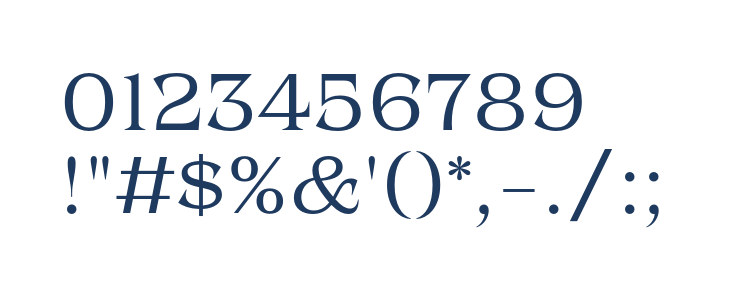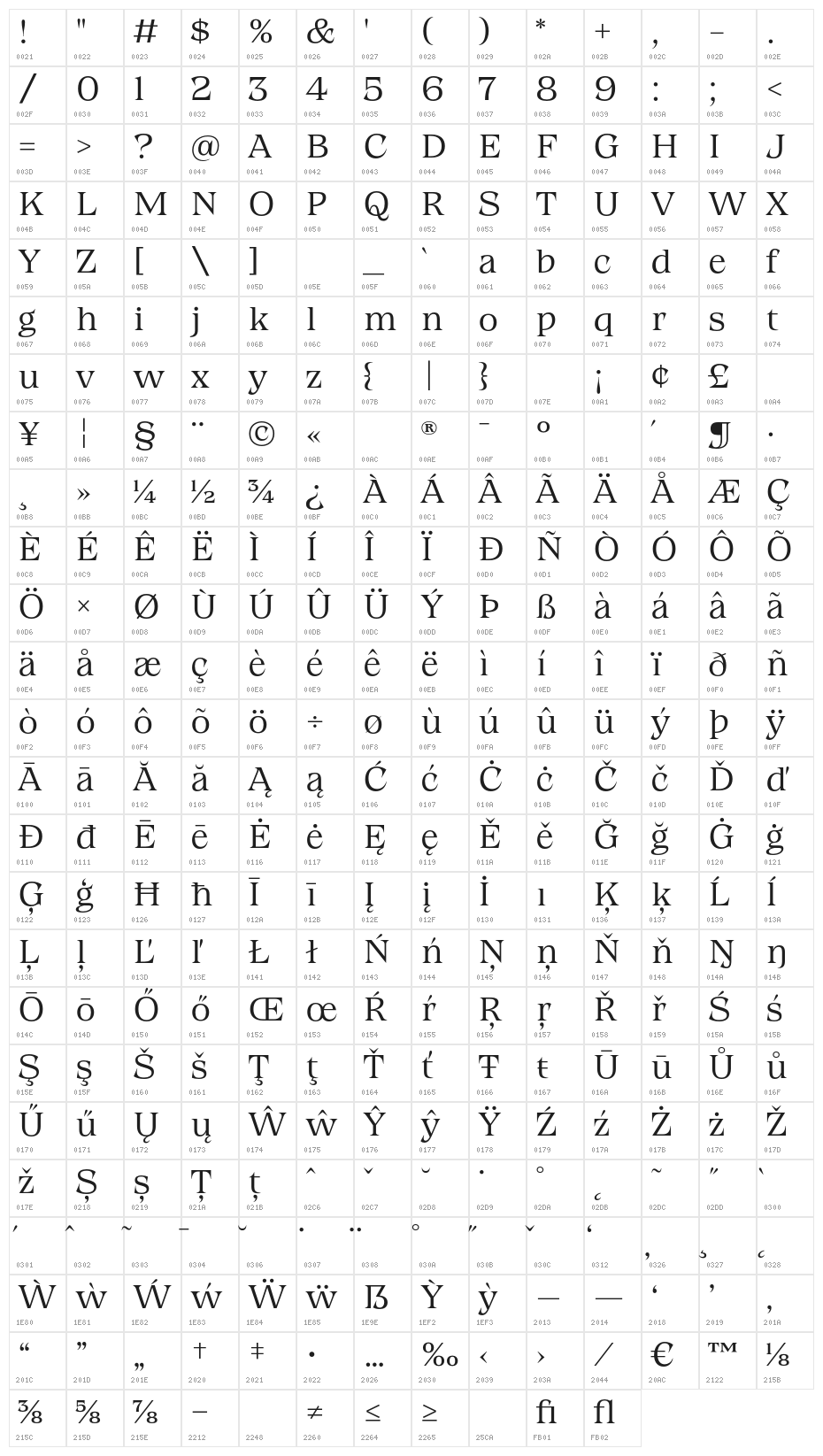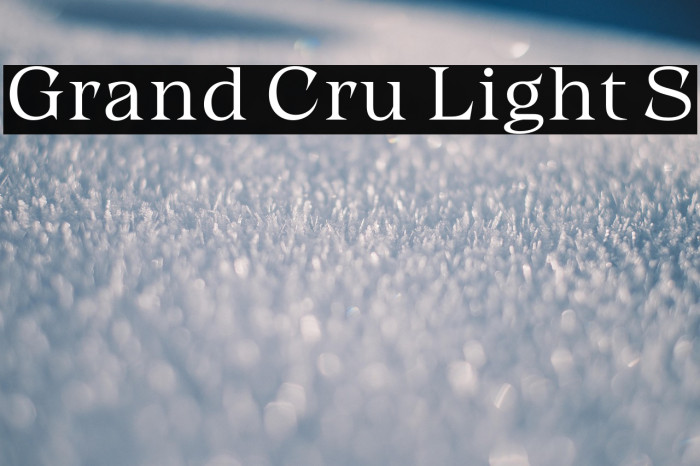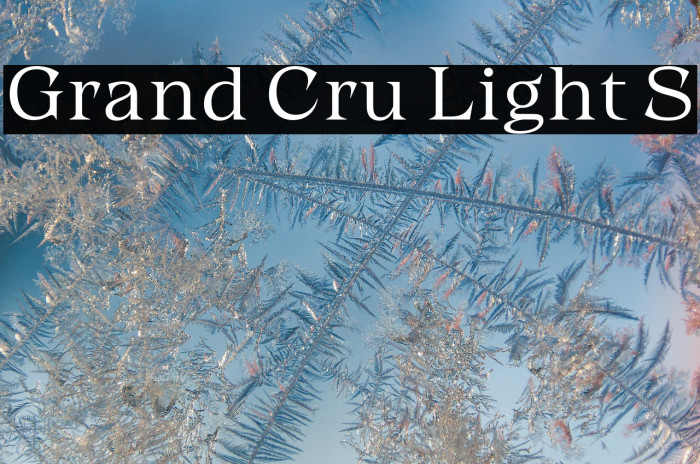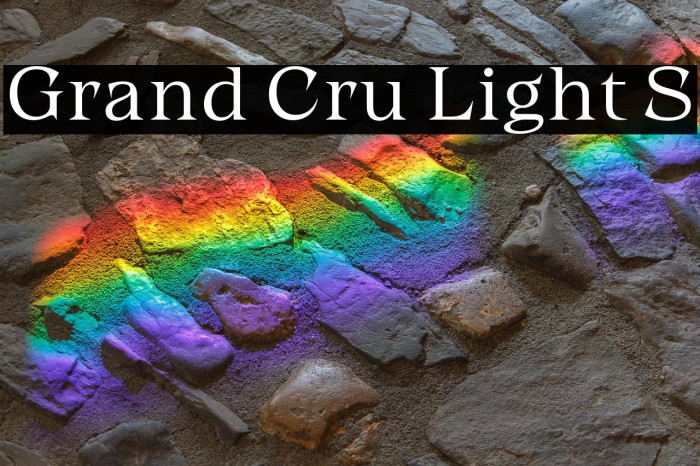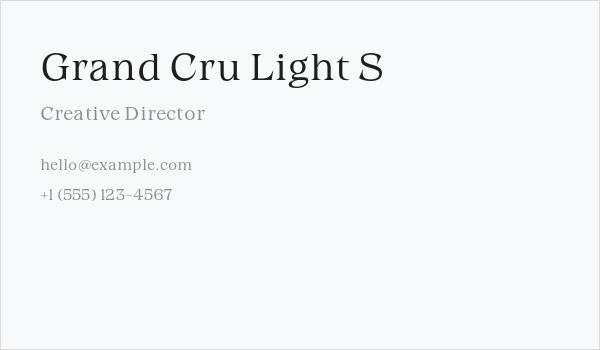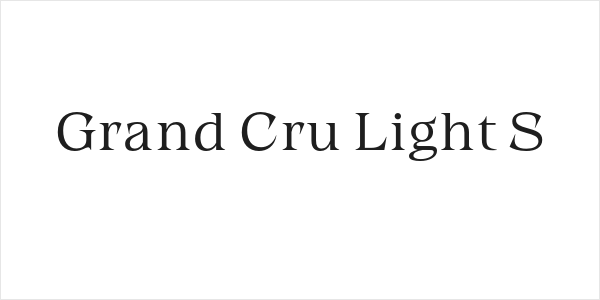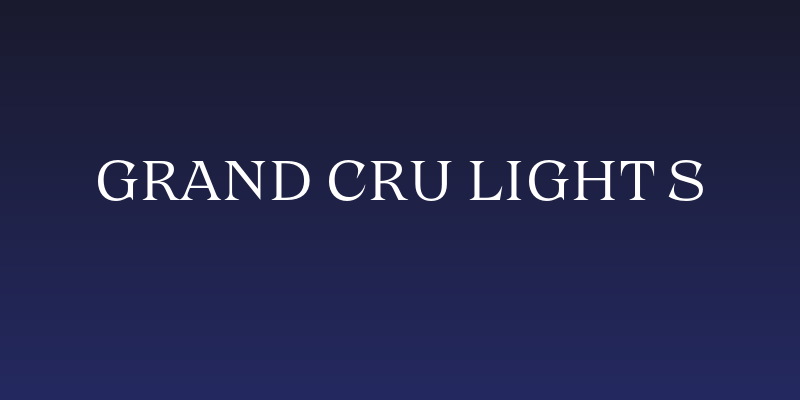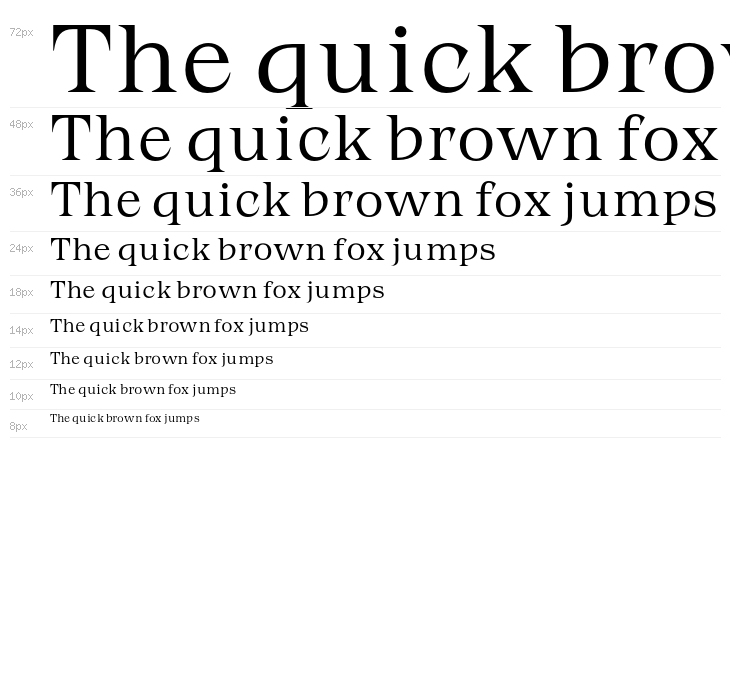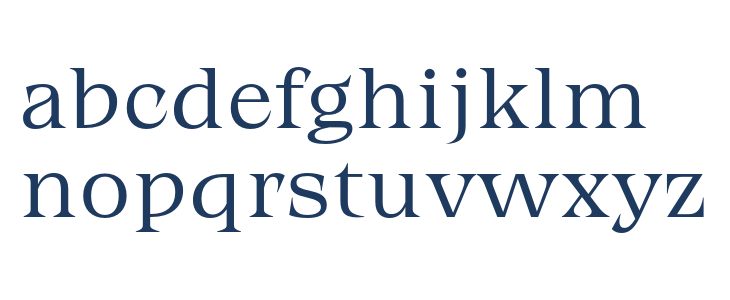
Grand Cru Light S Font
Grand Cru Light S Description
This font features a classic serif style with elegant and refined strokes. The characters have a balanced proportion, with slightly elongated serifs that add a touch of sophistication. The uppercase letters are bold and commanding, while the lowercase letters maintain a graceful and fluid appearance. The numerals are clear and distinct, making them easily readable. Special characters are well-integrated, maintaining the overall aesthetic. This font exudes a timeless charm, suitable for a variety of formal and professional applications.
| Proposed Projects | Ideal for editorial design, book covers, formal invitations, and branding materials. |